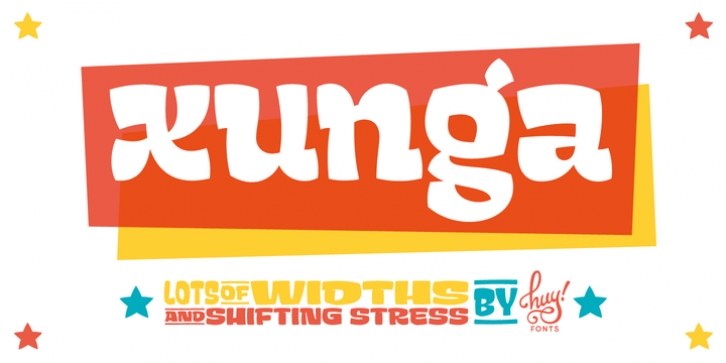
Xunga is a cheerful display typeface. My goal was to design a font able to fit any layout with boldness and playfulness, mixing a sign painter taste in the uppercase and some of my crappy calligraphic reverse contrast explorations with the flat brush for the lowercase.
I designed several of widths to fit the page, and though about a different way of expanding the family shifting the horizontal stress axis to move the letter weight in different heights, making a 15 fonts family, suitable for making bold layouts.